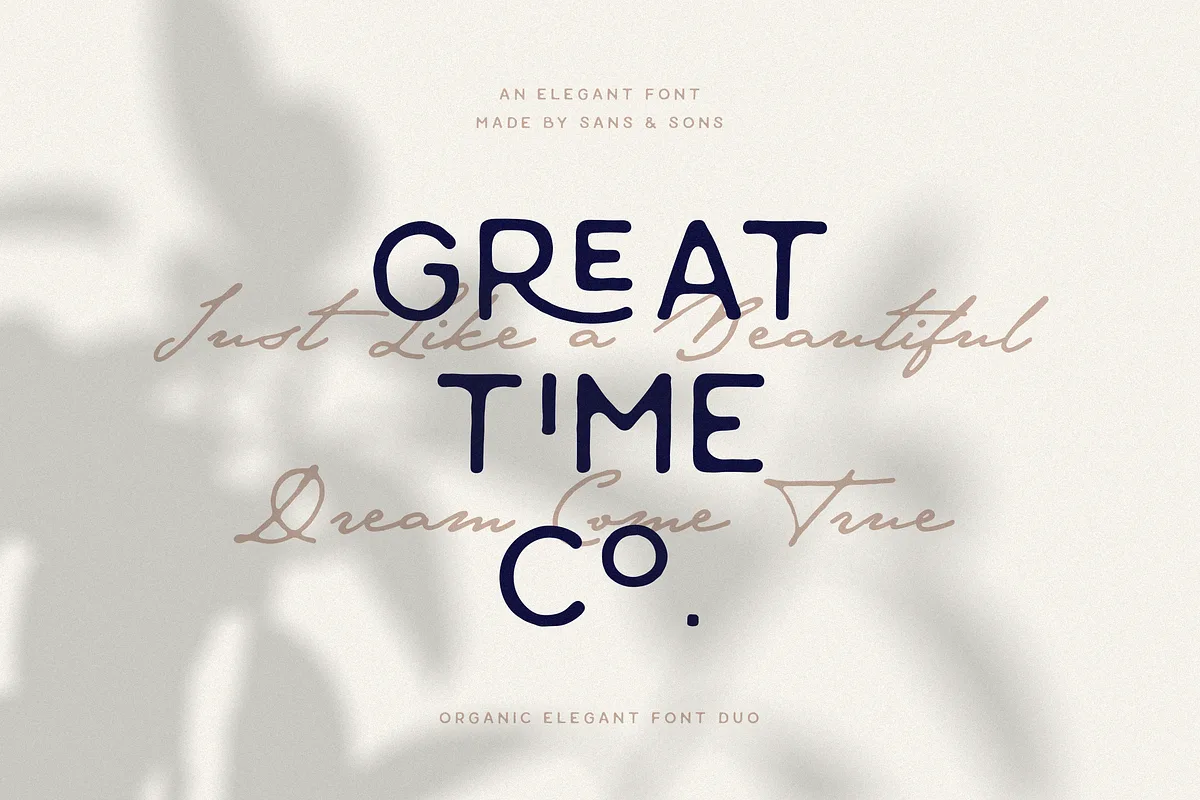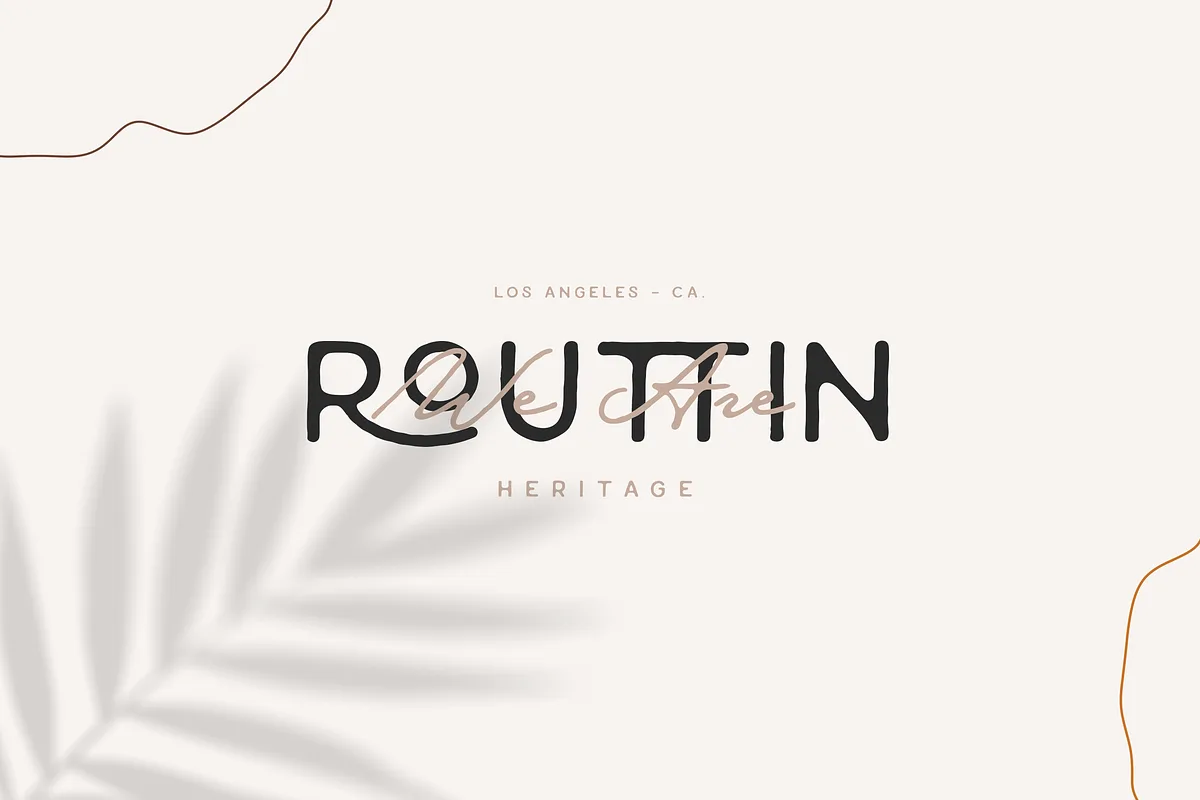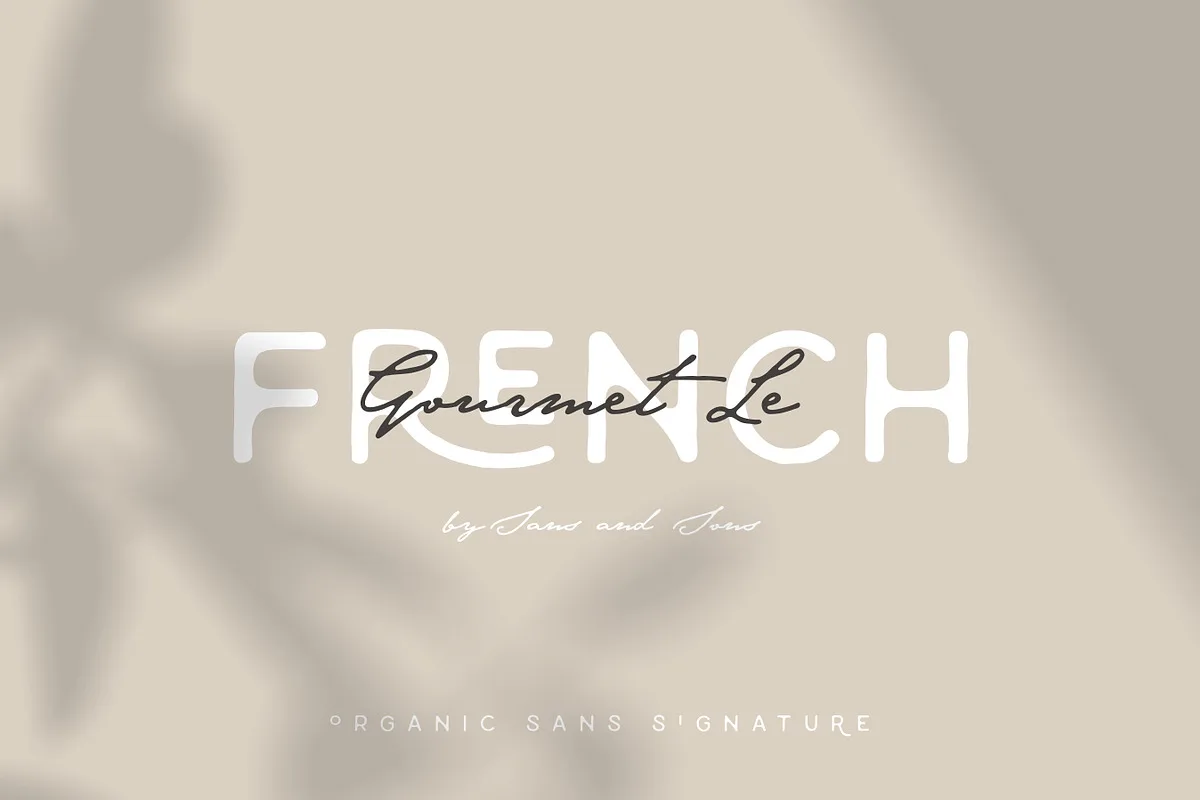
Gourmet Le French Sans – Organic Modern Paired Duo by Sans and Sons. Introducing our new “Gourmet Le French” with a Modern Elegant Style this is perfect for branding, logos, invitations, mastheads and more.
- Multilanguage
- Ligatures
- Alternates
- PUA Encoded